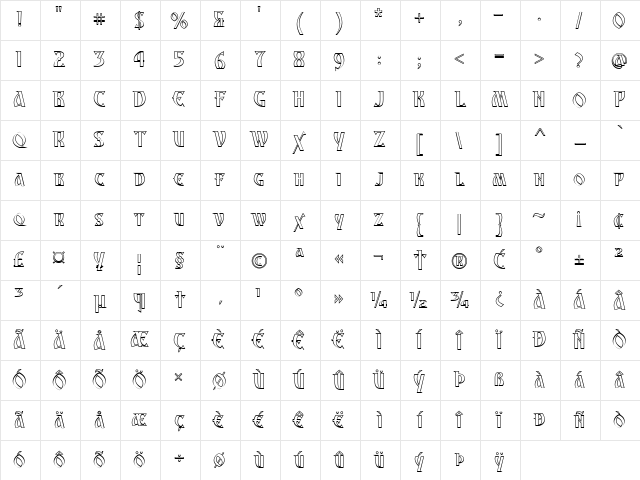
Complete Archangel Regular glyph index. Displaying only characters natively supported by Archangel Regular font.
Archangel is a composed and adaptable typeface that performs quietly and consistently across a wide range of design contexts.
Who designed the Archangel Regular font?